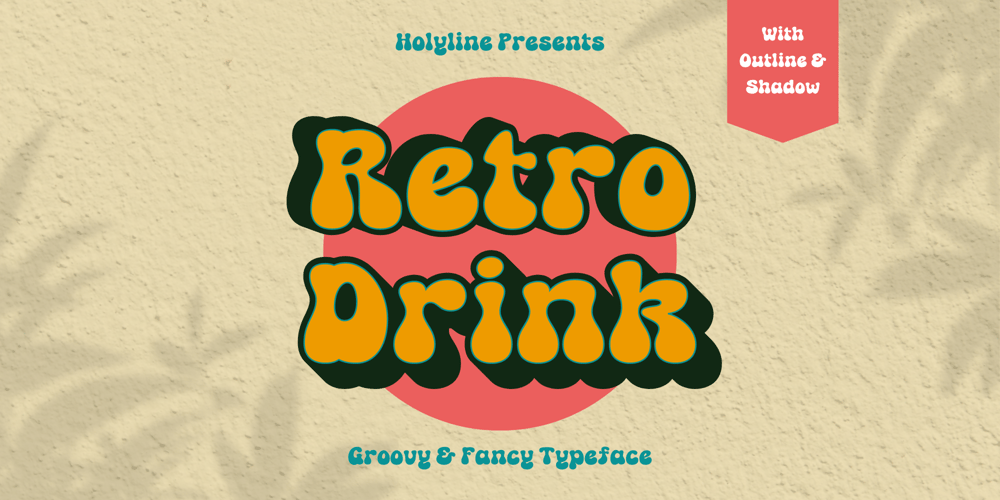
Retro Drink Font Family was designed by Bagus Beratha Wijaya and published by holyline design. Retro Drink contains 4 styles and family package options. Retro Drink Groovy Typeface by holyline. Retro Drink is inspire by 80s character and come with modern, groovy, playful and bold characters. This font comes in 4 style. Which consists of Regular, Outline, ShadowUp and ShadowDown. This font very easy to use and combine them with a trending design style. Retro Drink perfect for headline, sub headline, custom logo, packaging, quote, label , merchandise and all design you need for make the vibe more retro and anything for your creativity. And Retro Drink s perfect font if you want something new with your project, you can play the 4 font style and mix with your design, its very satisfy. Happy creating!